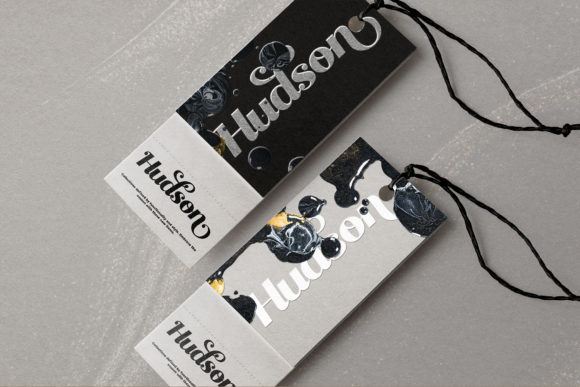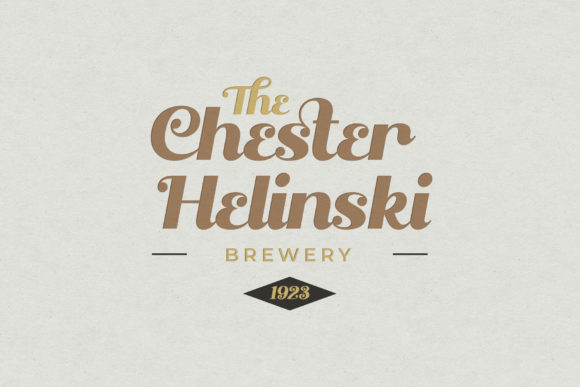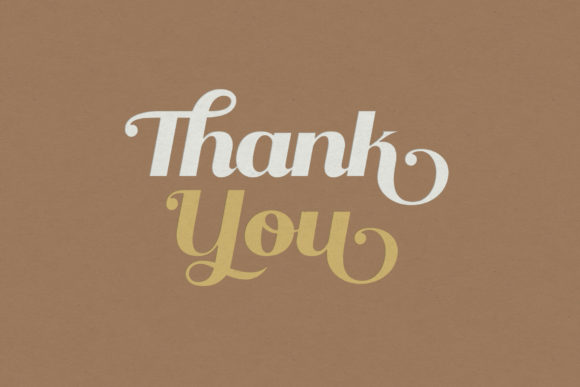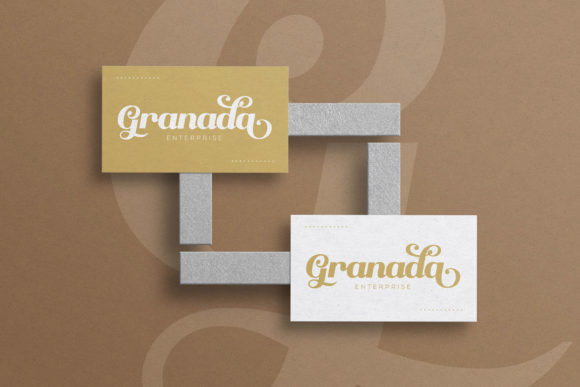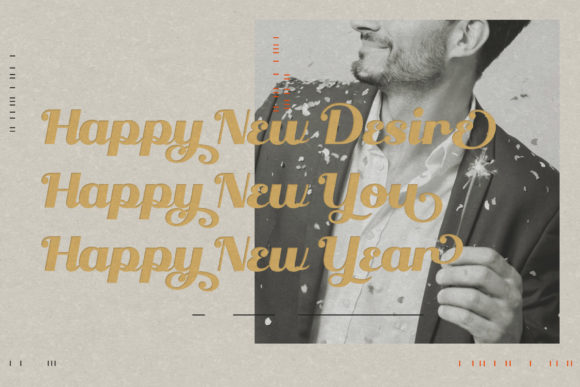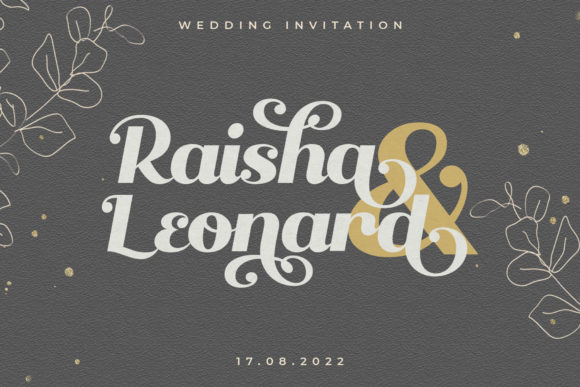
About Qanthura Font
Qanthura is a stylish, bold and retro styled handwritten font. Fall for its ravishing style and use it to create gorgeous wedding invitations, beautiful stationary art, eye-catching social media posts, and much more!